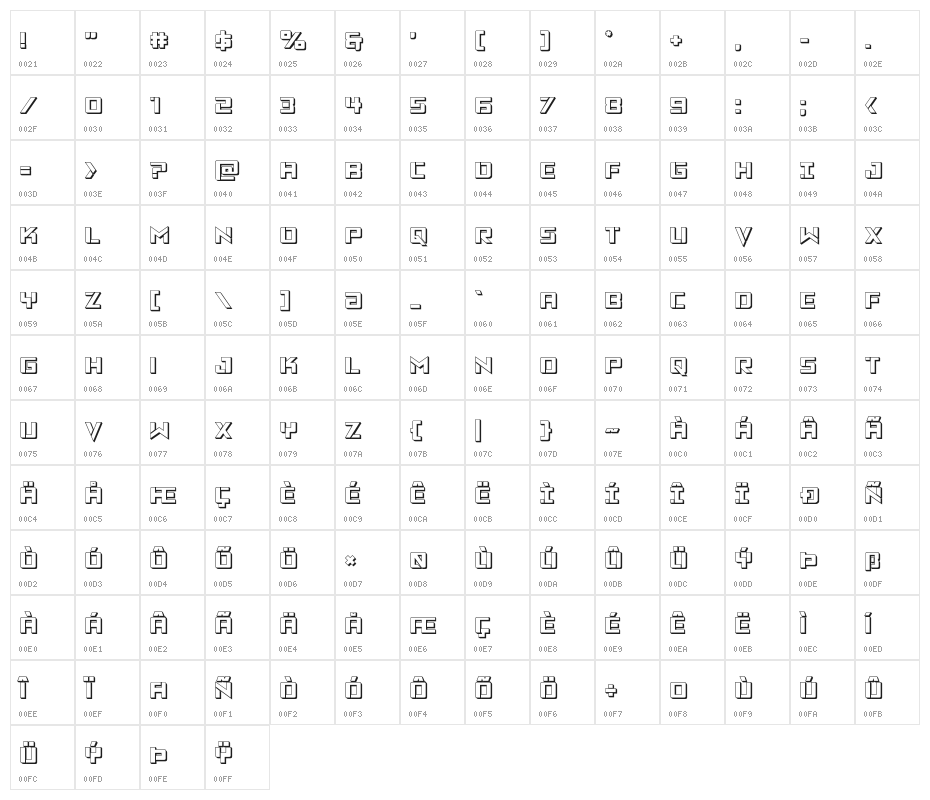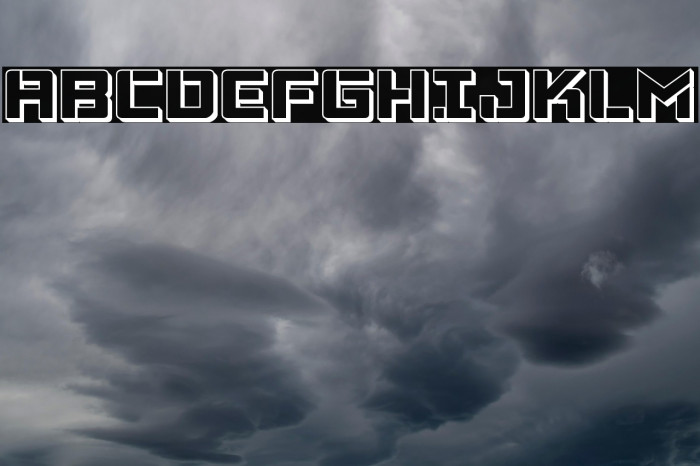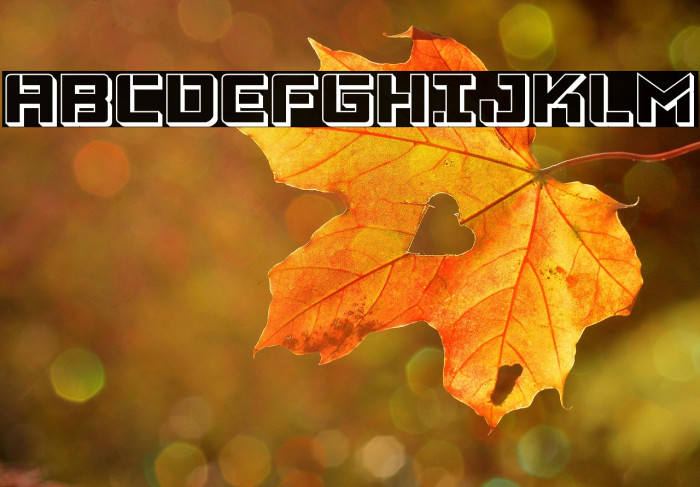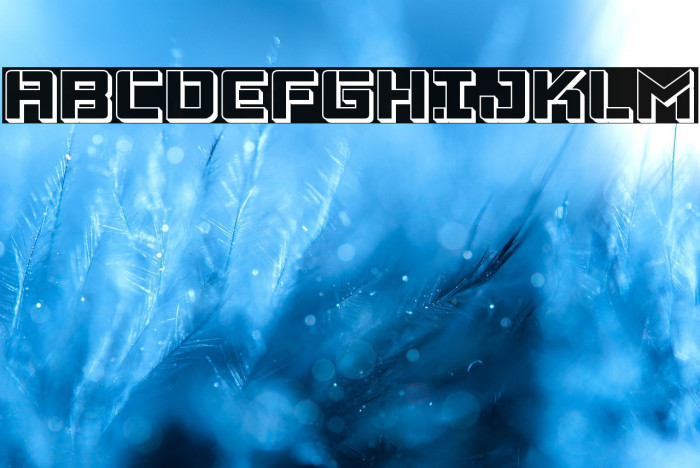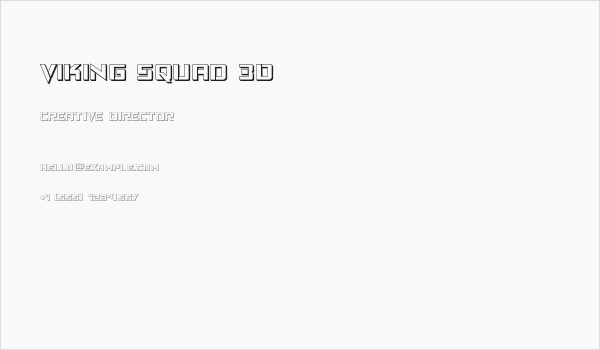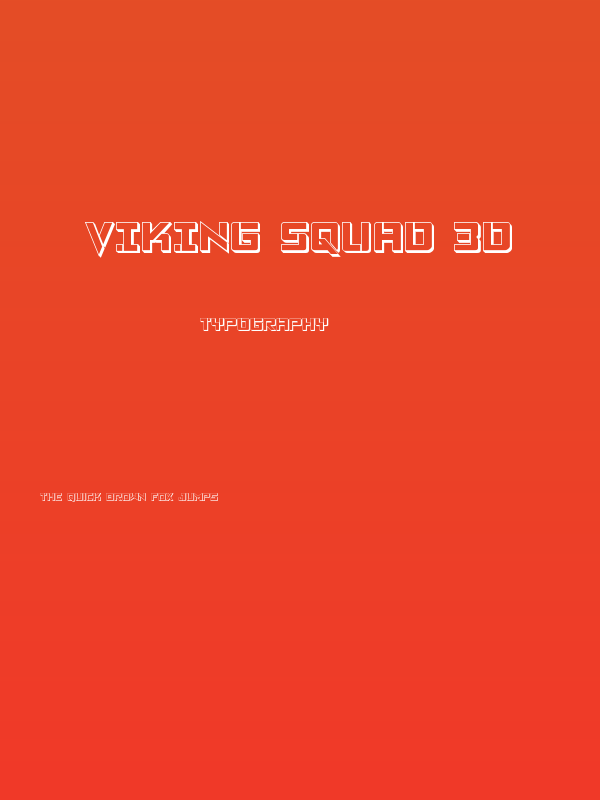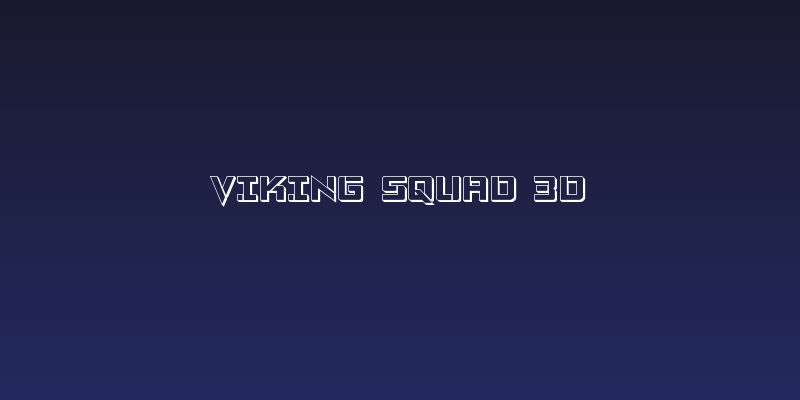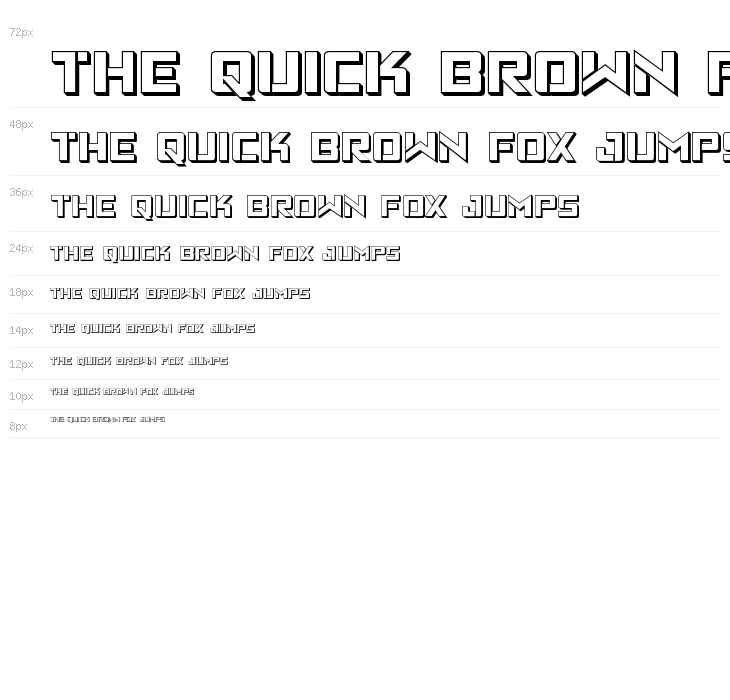
Viking Squad 3D Font
Viking Squad 3D Description
This font features a bold, geometric style with a 3D effect that gives it a modern and dynamic appearance. The characters are outlined, creating a sense of depth and dimension. The uppercase letters are angular and structured, while the lowercase letters maintain a consistent style. The numbers and special characters are designed to match the overall aesthetic, making the font versatile for various uses. Its strong visual impact makes it suitable for attention-grabbing designs.
| Proposed Projects | Ideal for video game titles, posters, logos, and any design requiring a strong, modern look. |